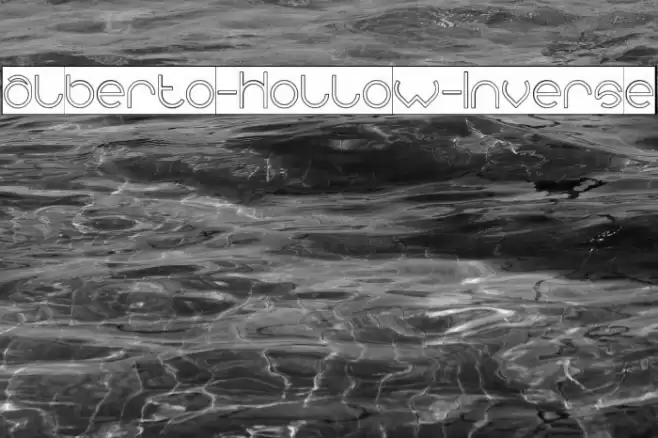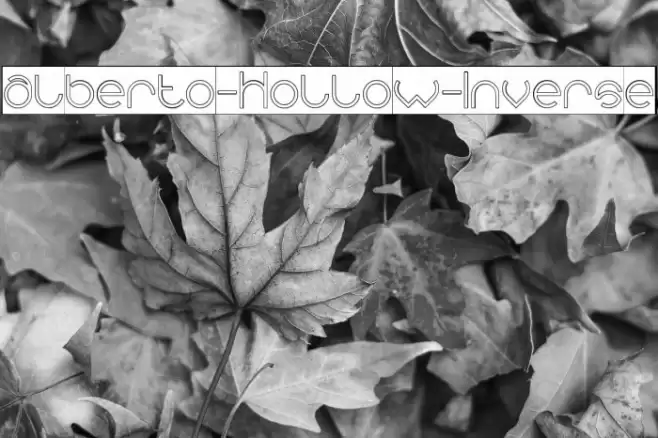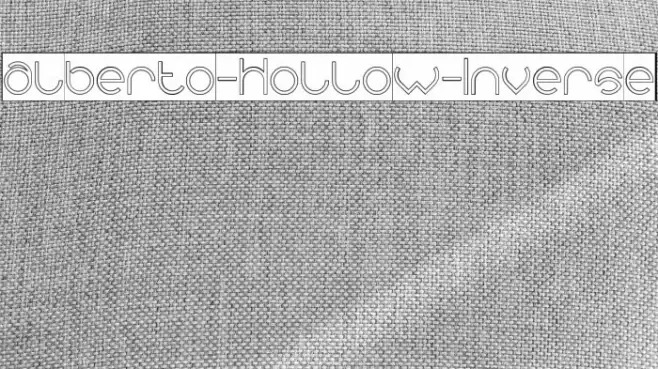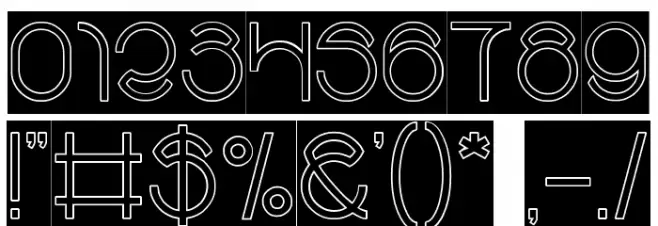
alberto-Hollow-Inverse Font
alberto-Hollow-Inverse Description
This font features a unique hollow design with an inverse style, creating a striking visual effect. The characters are outlined with a consistent stroke width, giving them a modern and futuristic appearance. The uppercase and lowercase letters maintain a geometric structure, while the numbers and special characters follow the same design principles. The font's clean lines and open spaces make it highly legible, even at smaller sizes. Its distinct style is perfect for projects that require a bold and contemporary look.
A modern, hollow, and geometric font with a futuristic style from Uncategorized fonts.